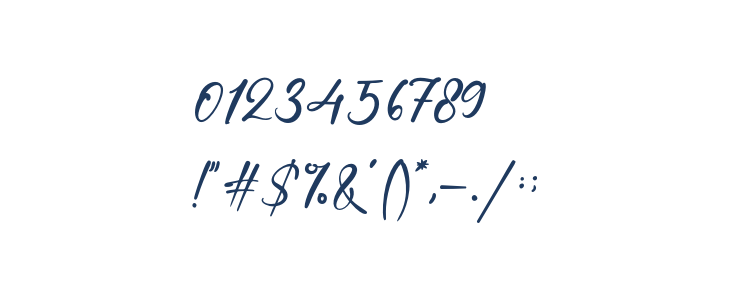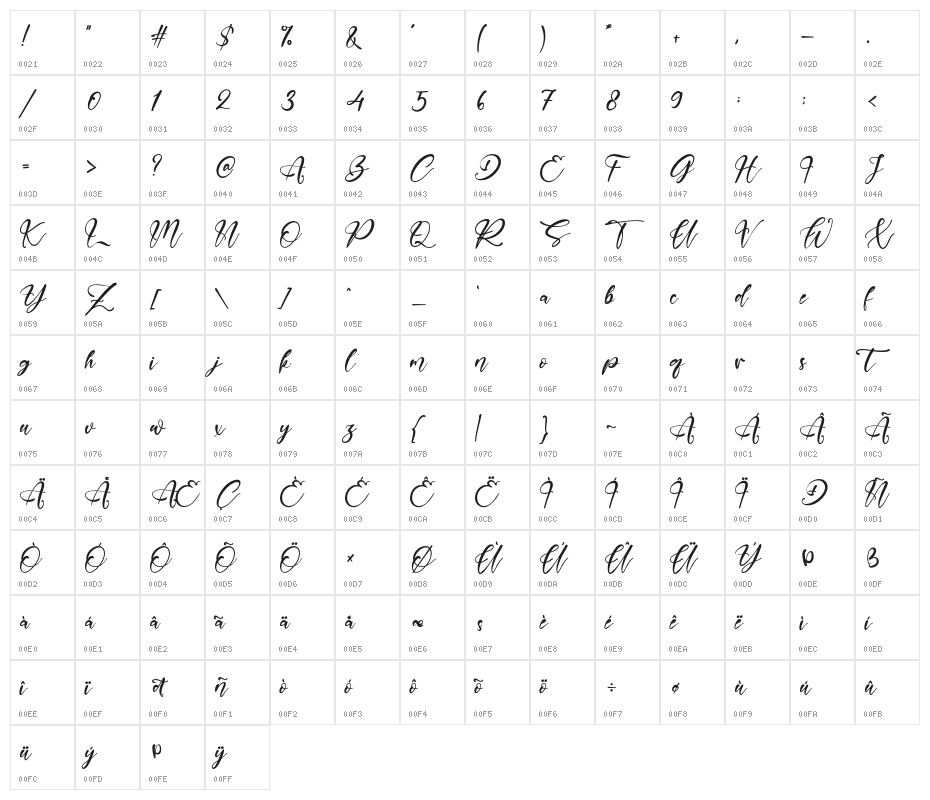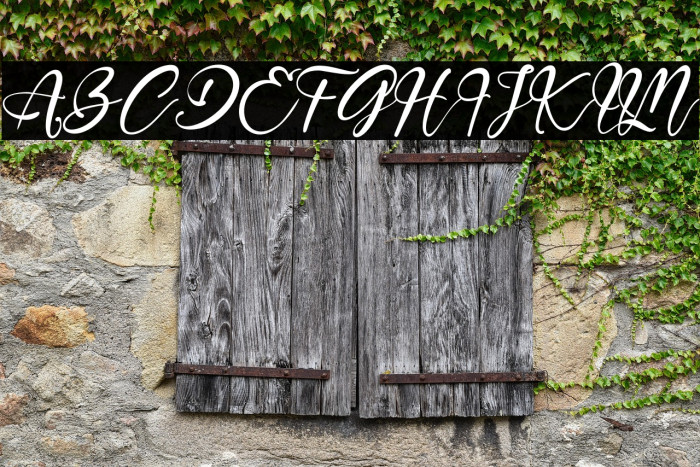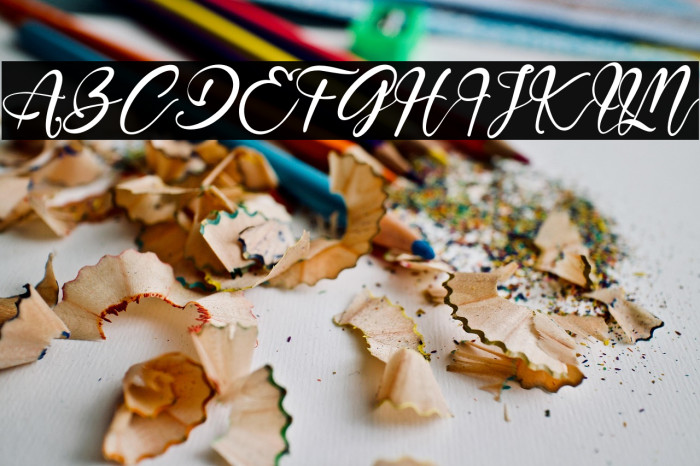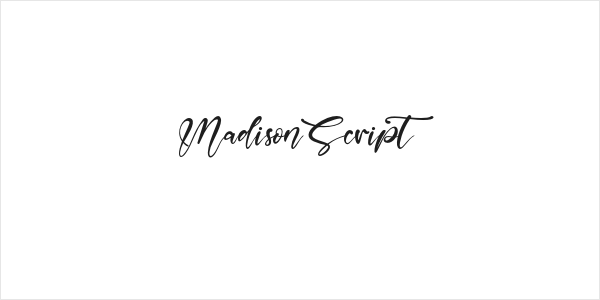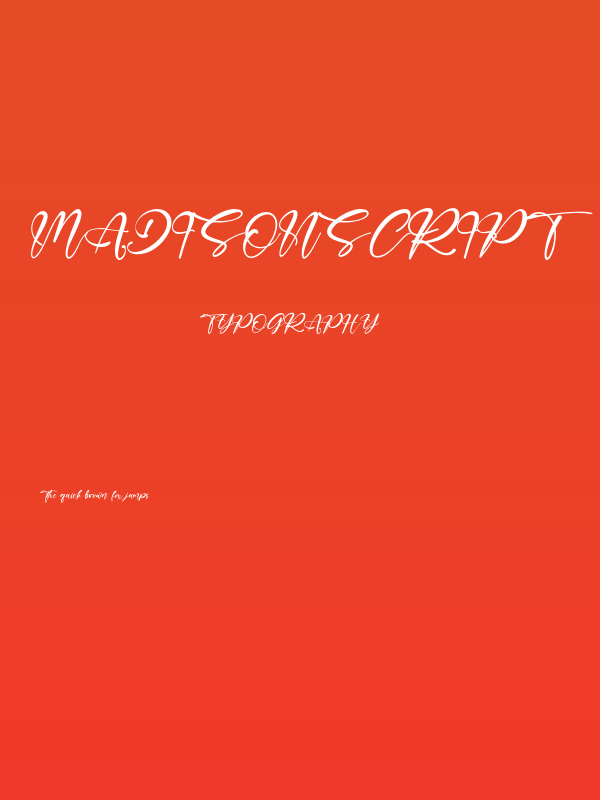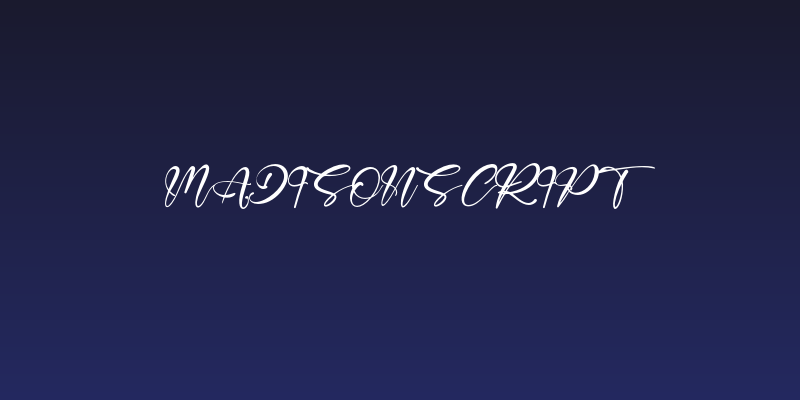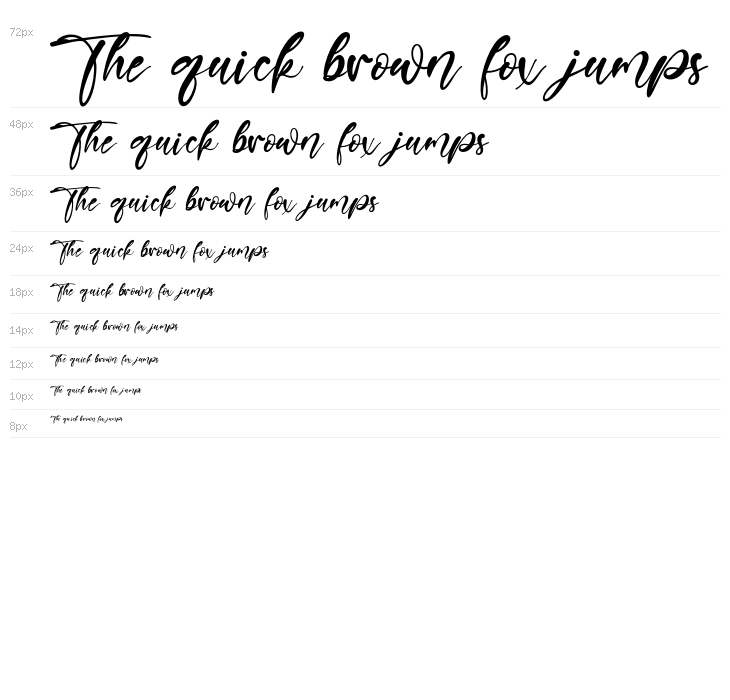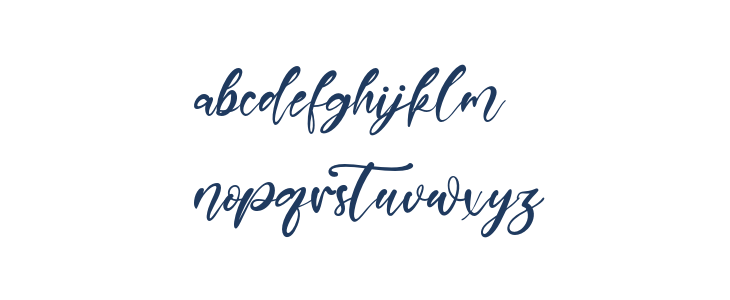
MadisonScript Font
MadisonScript Description
This elegant script font features fluid, cursive strokes that mimic the natural flow of handwriting. The uppercase letters are ornate and sweeping, with a distinct flair that adds a touch of sophistication. Lowercase letters maintain a consistent rhythm, with smooth connections between characters, enhancing readability. The numerals are stylish yet clear, making them suitable for various design contexts. Special characters are crafted with the same attention to detail, ensuring a cohesive look throughout. This font exudes a sense of elegance and grace, perfect for projects that require a personal touch.
| Overall Style | Elegant |
| Use Case | Logos, Invitations, Greeting Cards |
| Proposed Projects | Ideal for wedding invitations, greeting cards, branding, and elegant packaging designs. |